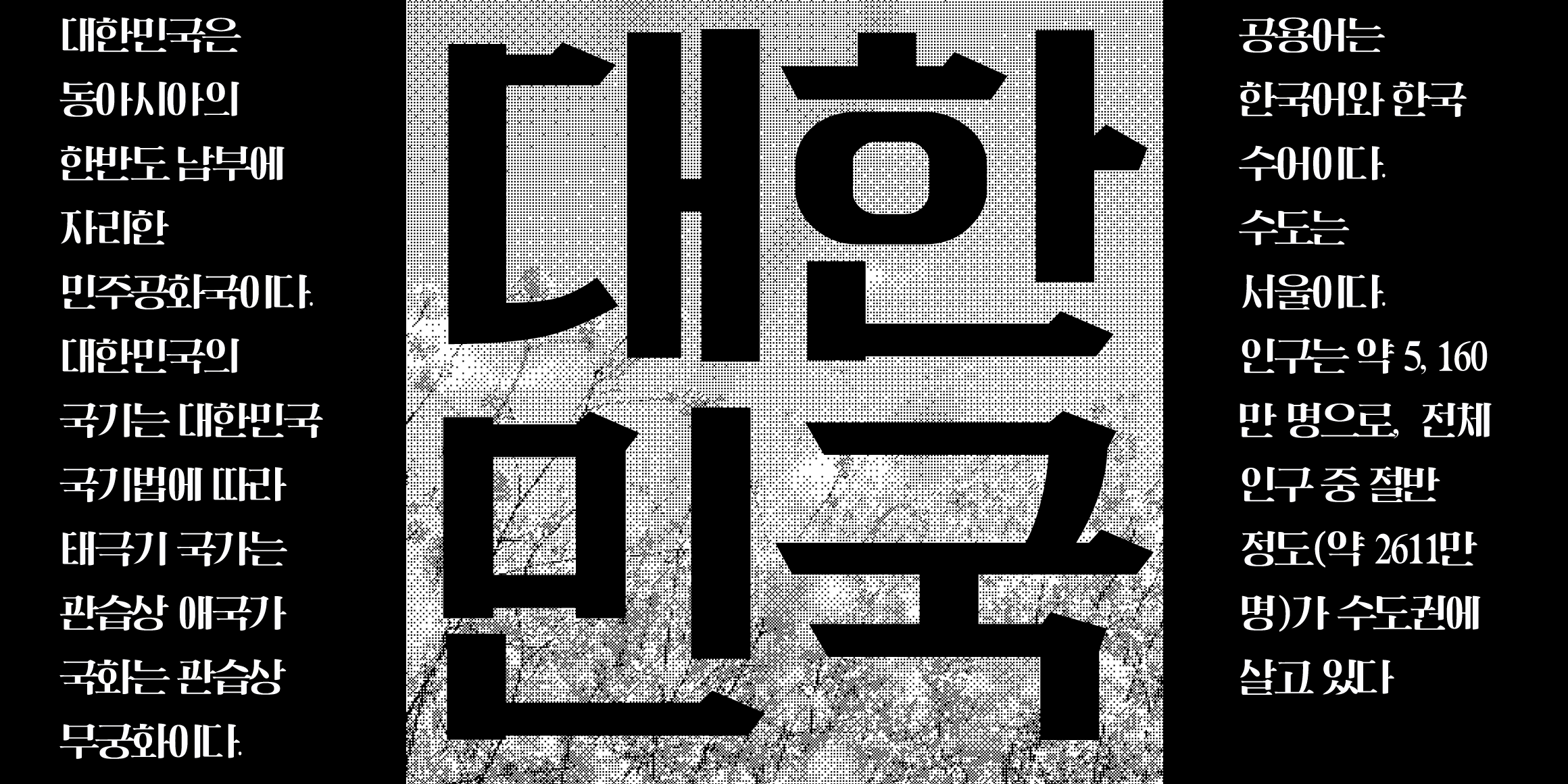
DRMarket2 Munrae
• 로데오
• 창작촌
Market2 Munrae is a typeface developed with inspiration from the lettering traditionally cut into glass doors along the tool streets and old industrial complexes of Mullae-dong. Built on a horizontally expanded extended structure, the design intentionally shifts the visual center of gravity in selected characters and incorporates subtle cutting details, capturing an industrial yet retro atmosphere. The family is structured to reflect the distinct identities of two representative spaces in Mullae-dong. The core style, “Rodeo,” is designed with a structural and restrained impression, emphasizing clarity and solidity. In contrast, the decorative style, “Creative,” enhances artistic sensibility and an experimental mood through added ornamental elements. Reinterpreting Mullae-dong’s raw yet vibrant urban energy in a contemporary way, Market2 Munrae is highly effective for applications that demand strong presence and spatial impact, such as signage, packaging design, poster titles, and YouTube thumbnails.